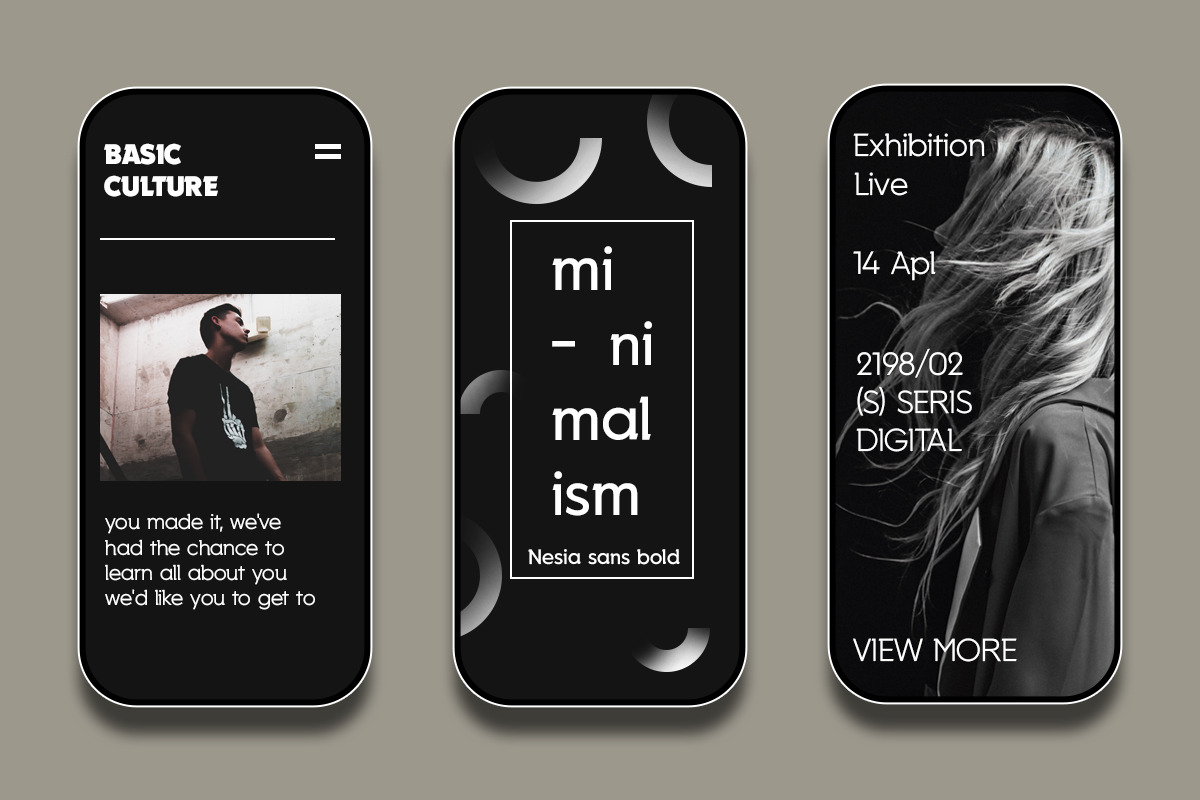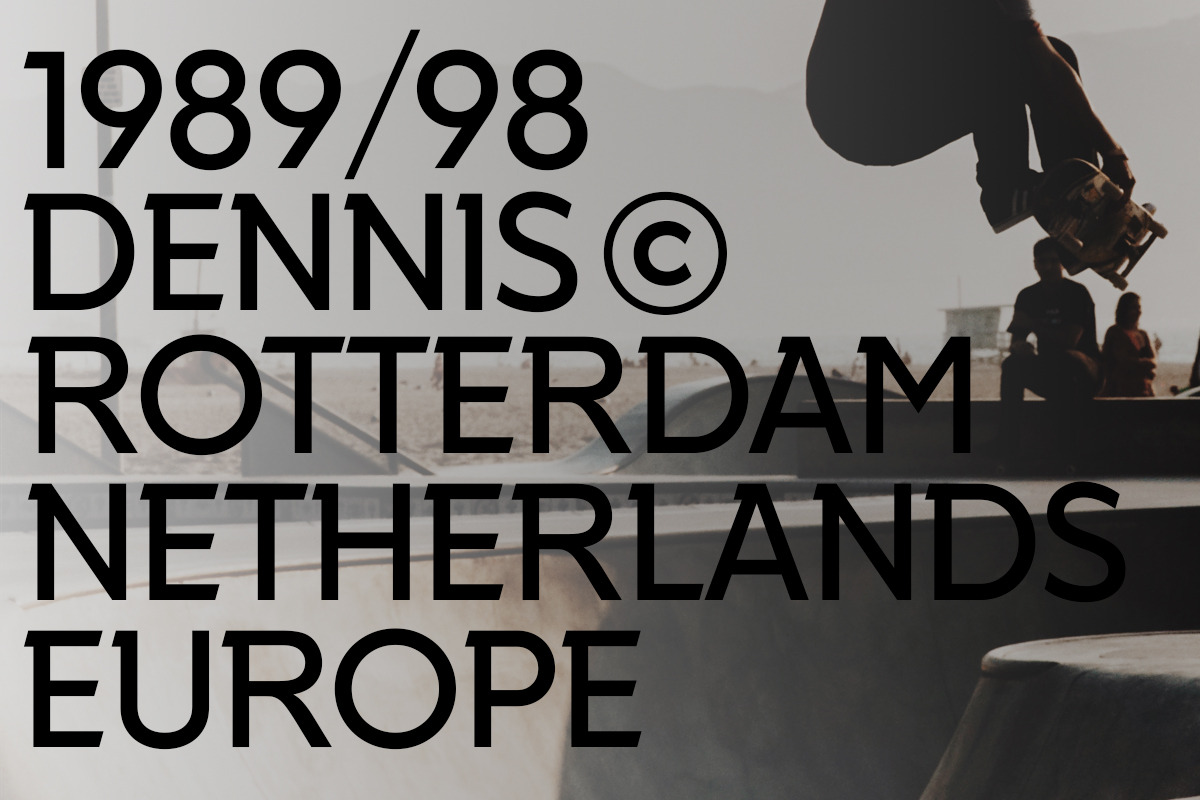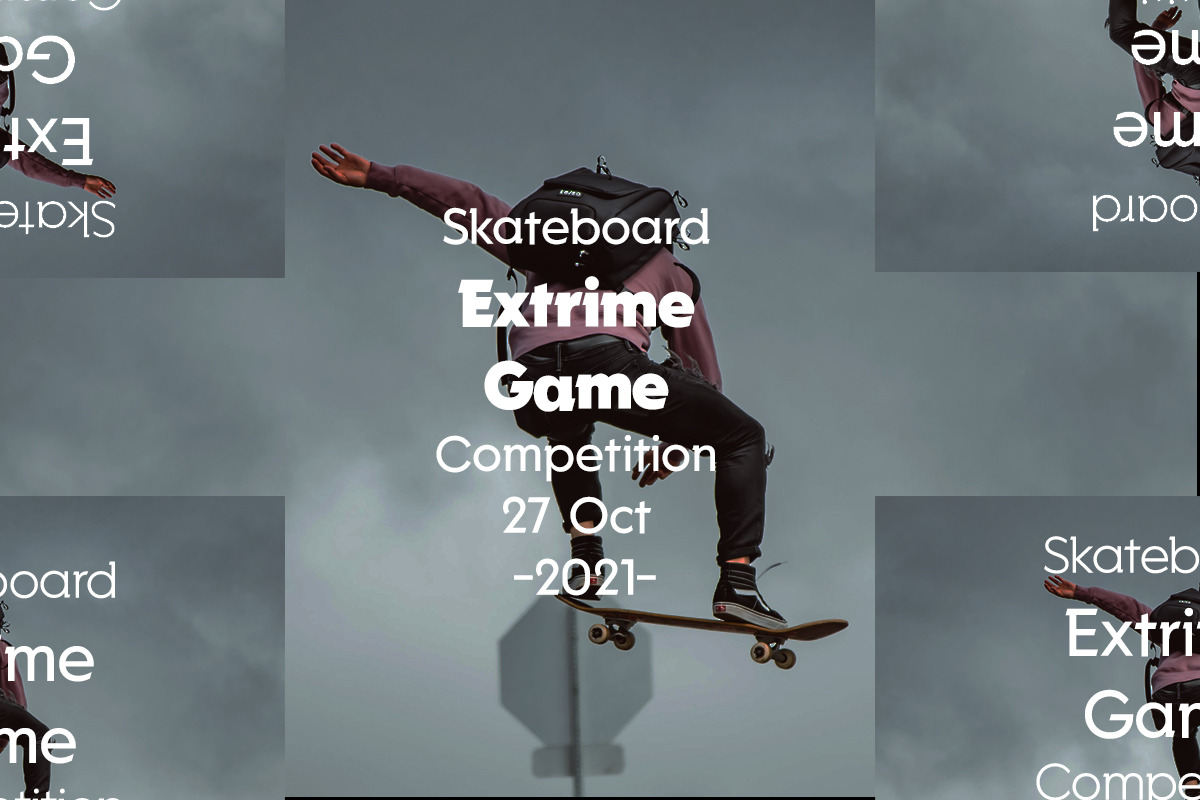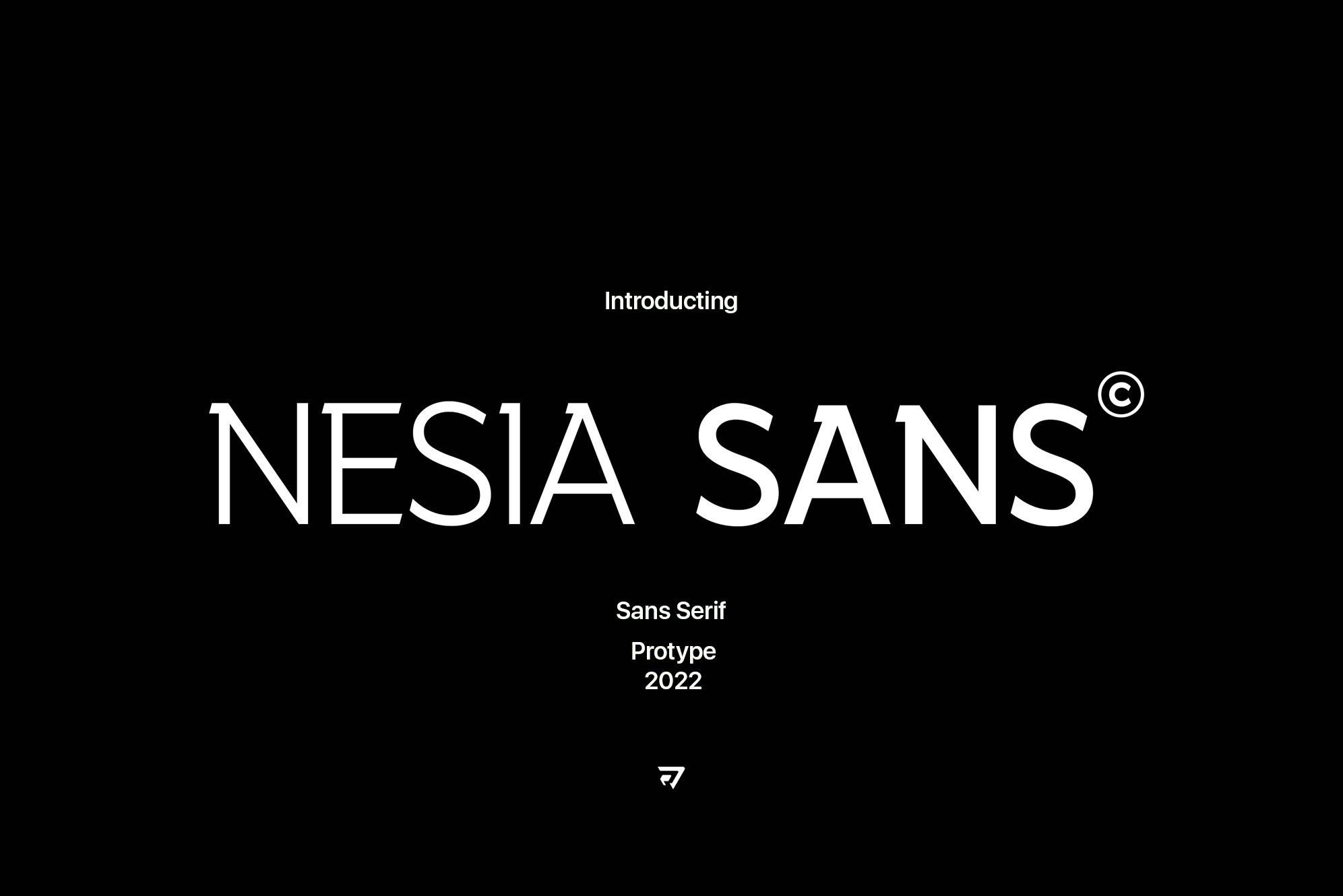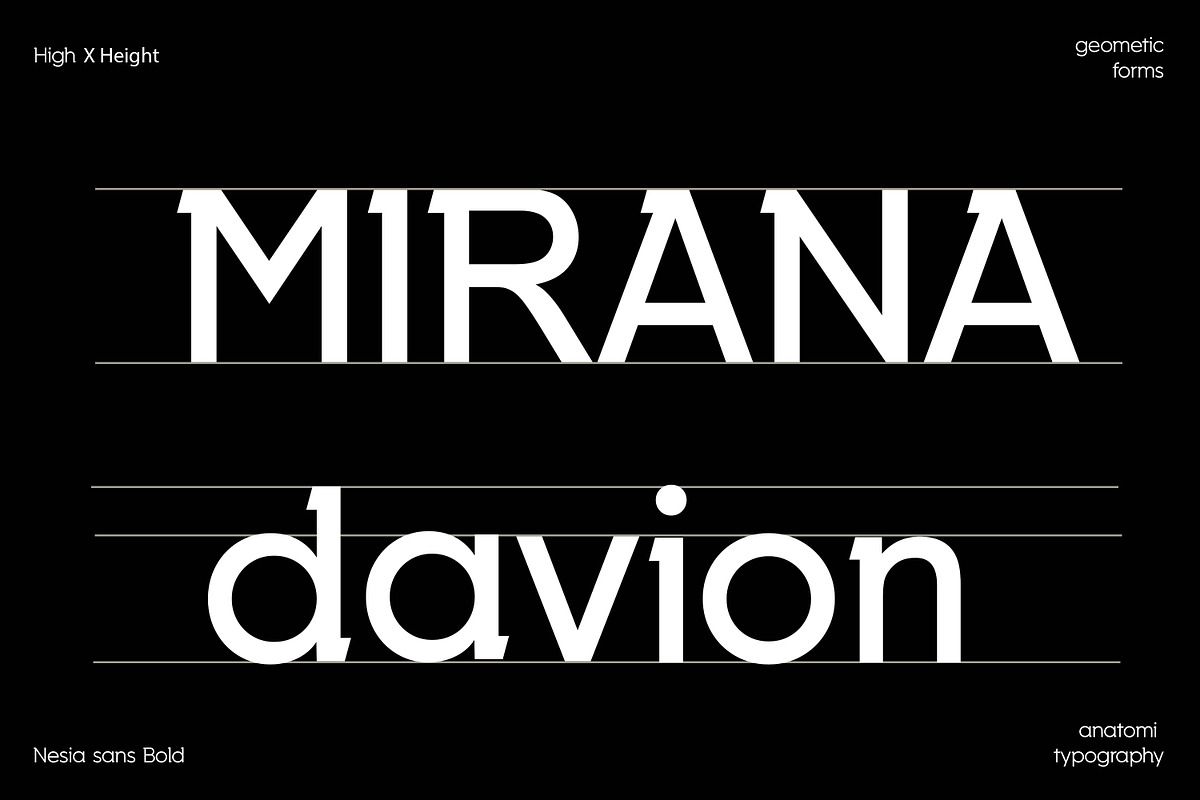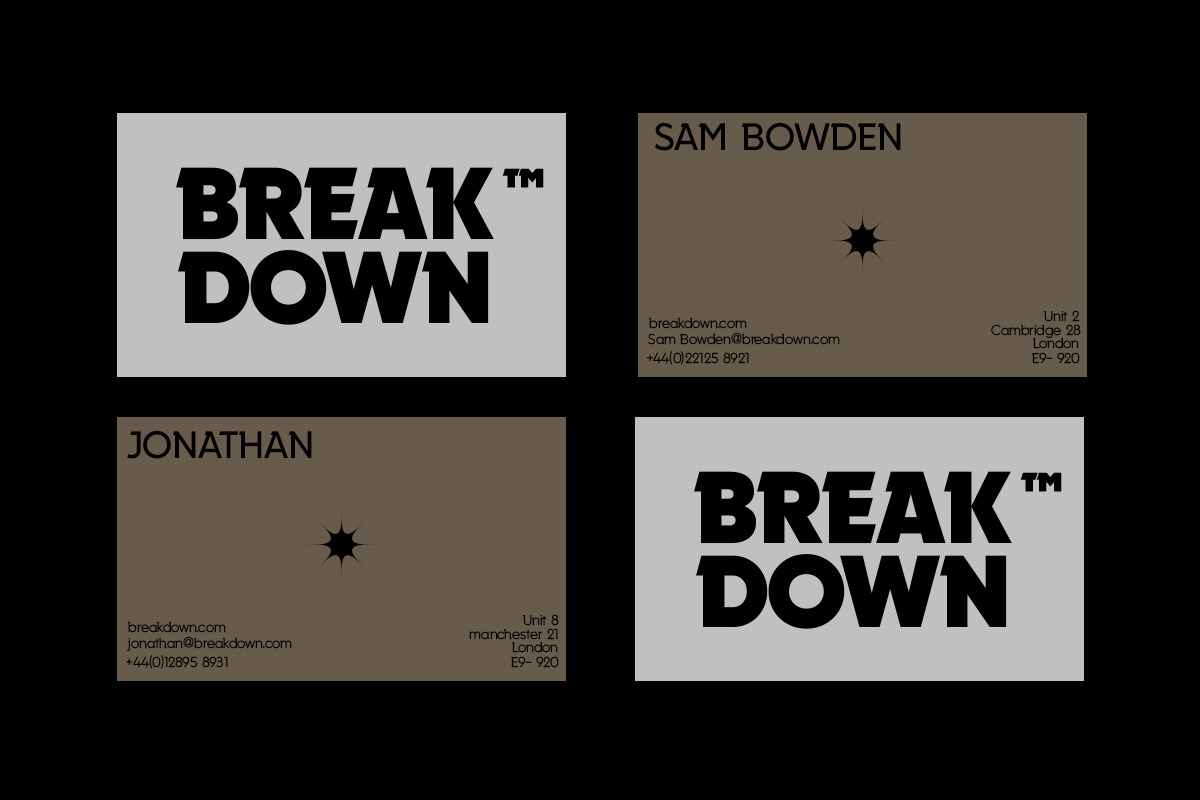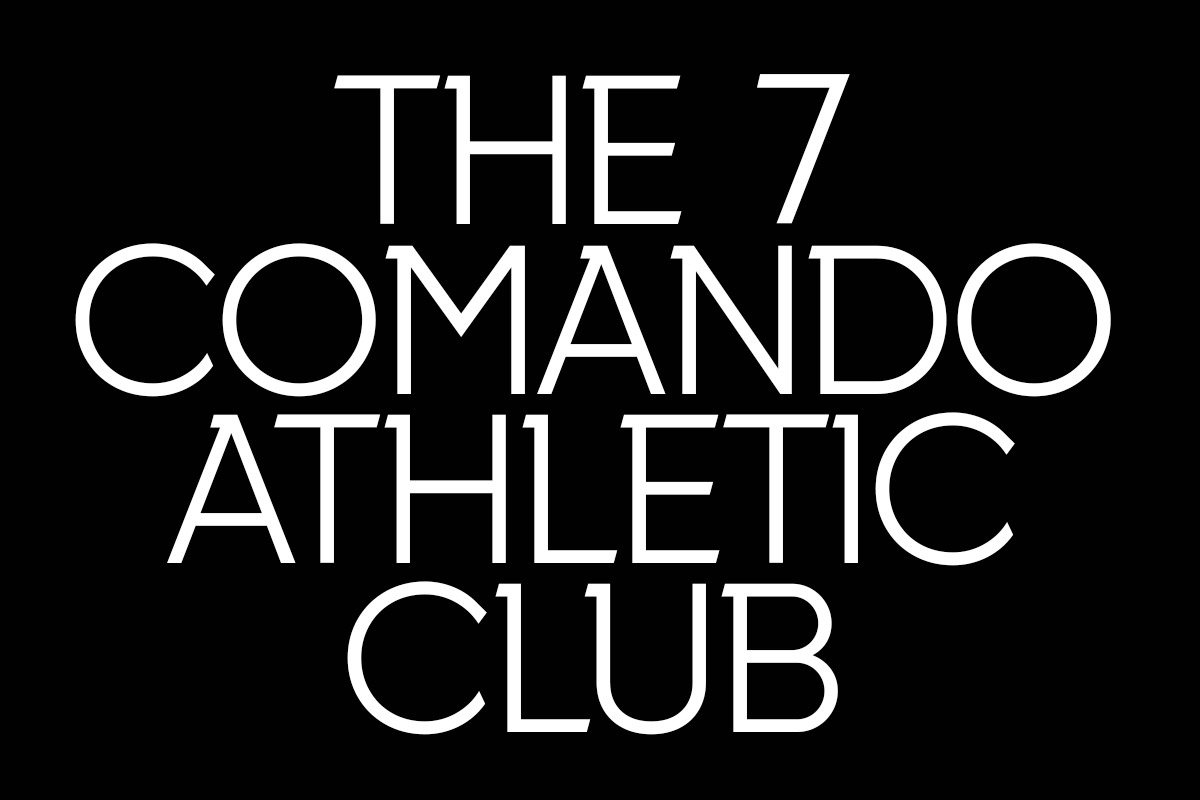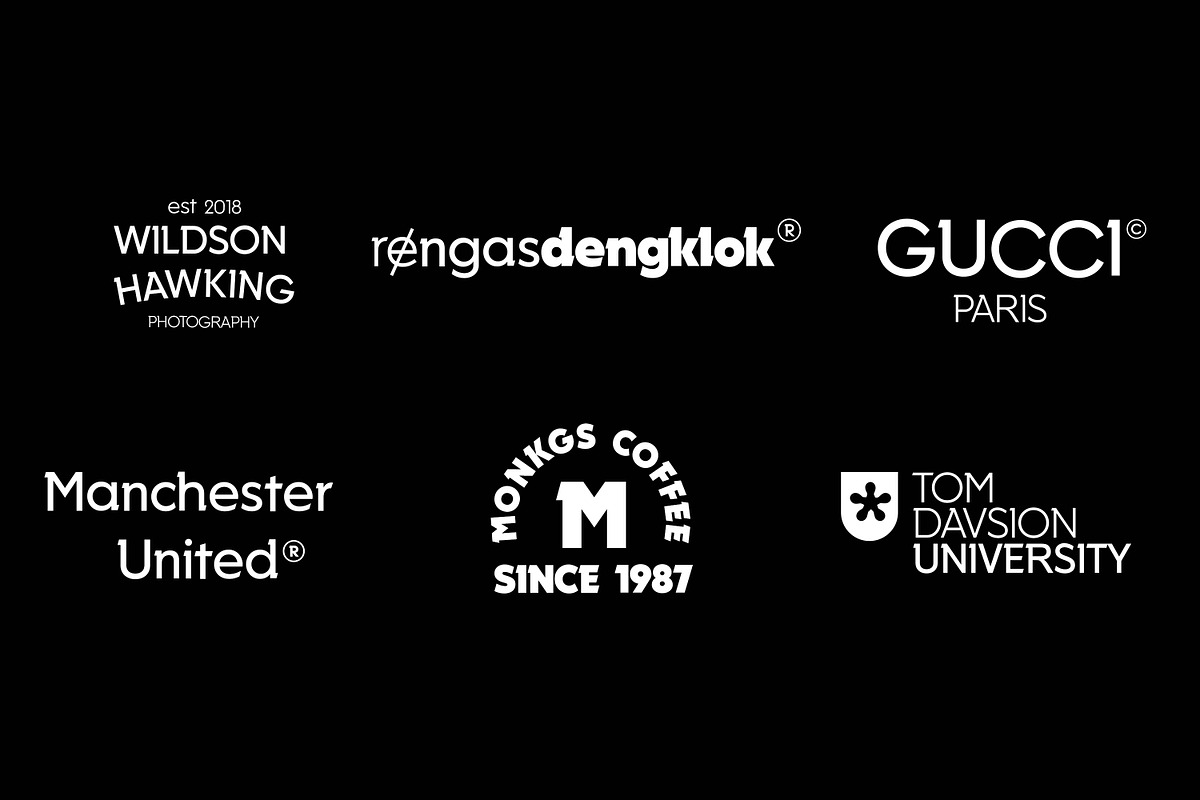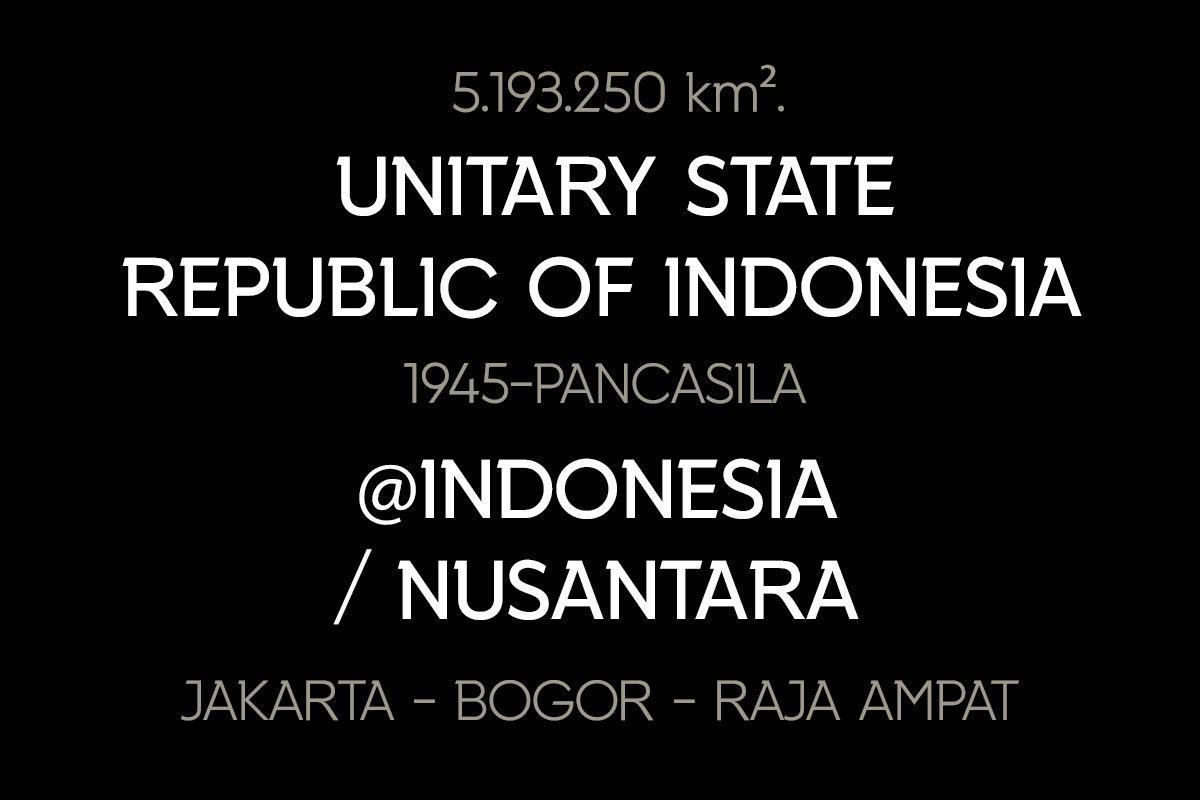
Nesia Sans Font
Nesia sans is a modern slab serif font. Simple and sharp-looking, this typeface will truly inspire you to create spectacular designs that will impress everyone!